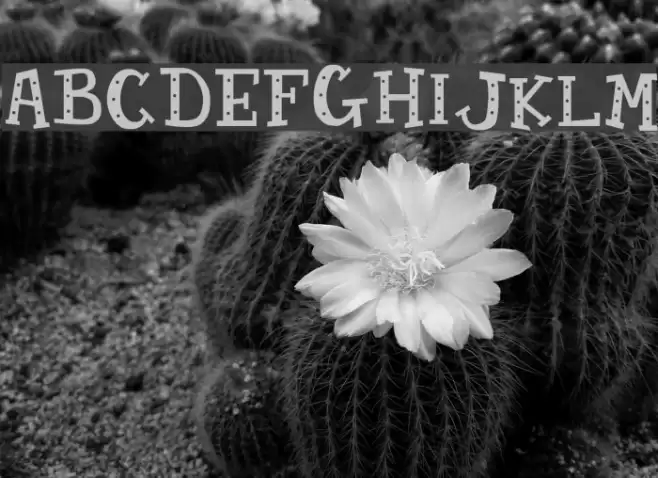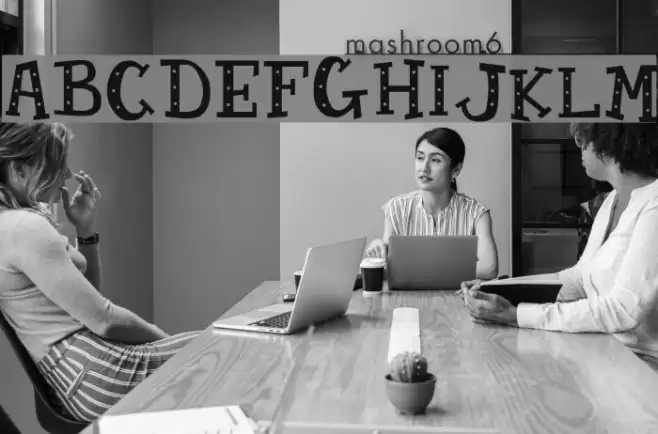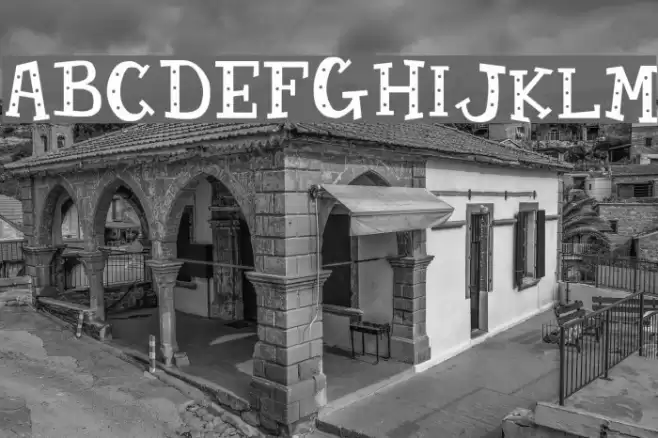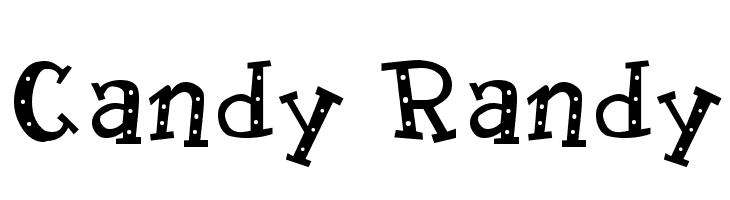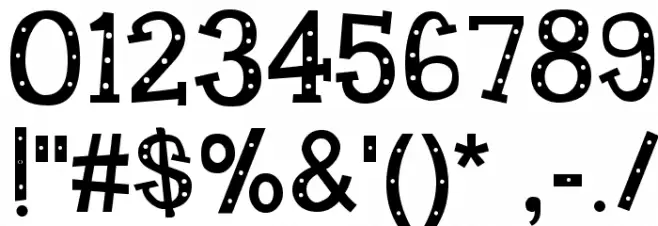
Candy Randy Font
Candy Randy Description
This playful and whimsical font features bold, rounded characters adorned with small dots, giving it a lively and fun appearance. The uppercase letters are slightly larger and more pronounced, while the lowercase letters maintain a consistent style with a touch of quirkiness. The numbers and special characters follow the same decorative pattern, making the font cohesive and visually appealing. Its unique style is reminiscent of a carnival or festive theme, perfect for capturing attention and adding a cheerful vibe to any project.
A playful, dotted font with a whimsical and festive style from Broken fonts.
- Proposed Projects: Ideal for children's books, party invitations, festive banners, and playful branding projects.
- Overall Style: Whimsical, Festive
- Use Case: Headlines, Logos, Invitations